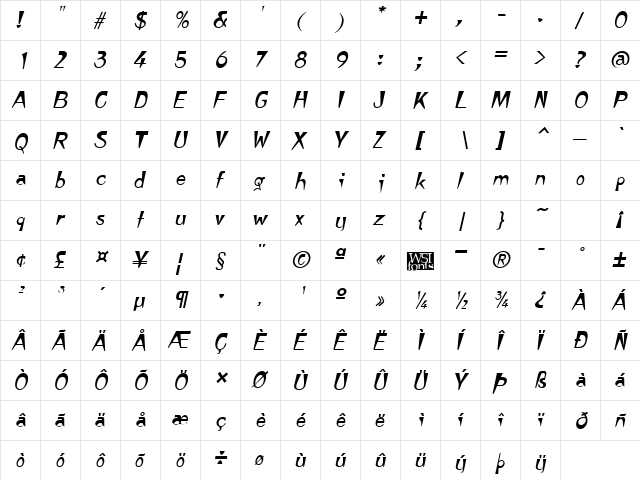
Tempura kursiv
Design Context for Tempura Typeface
Tempura offers clean, dependable letterforms without strong stylistic allegiance, making it a practical choice for designers who need flexibility. The dynamic lean of this cut emphasises speed and emphasis in any layout.
Pro Tip: Try Tempura for annotation and caption copy alongside an upright companion — the contrast in angle creates a dynamic but ordered typographic system.